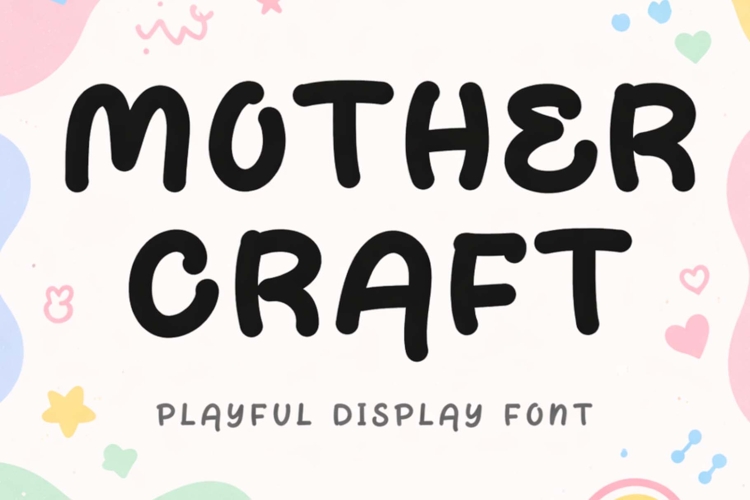
"Mother Craft" is a unique and cute display font. It features uppercase and lowercase letters, numerals, punctuations, and multilingual support. It's perfect for Easter, summer, holidays, Teacher's Day, Mother's Day, print, banners, branding, stickers, vacations, logos, Christmas, funny text, bunny, rabbit, cartoons, comics, and more.